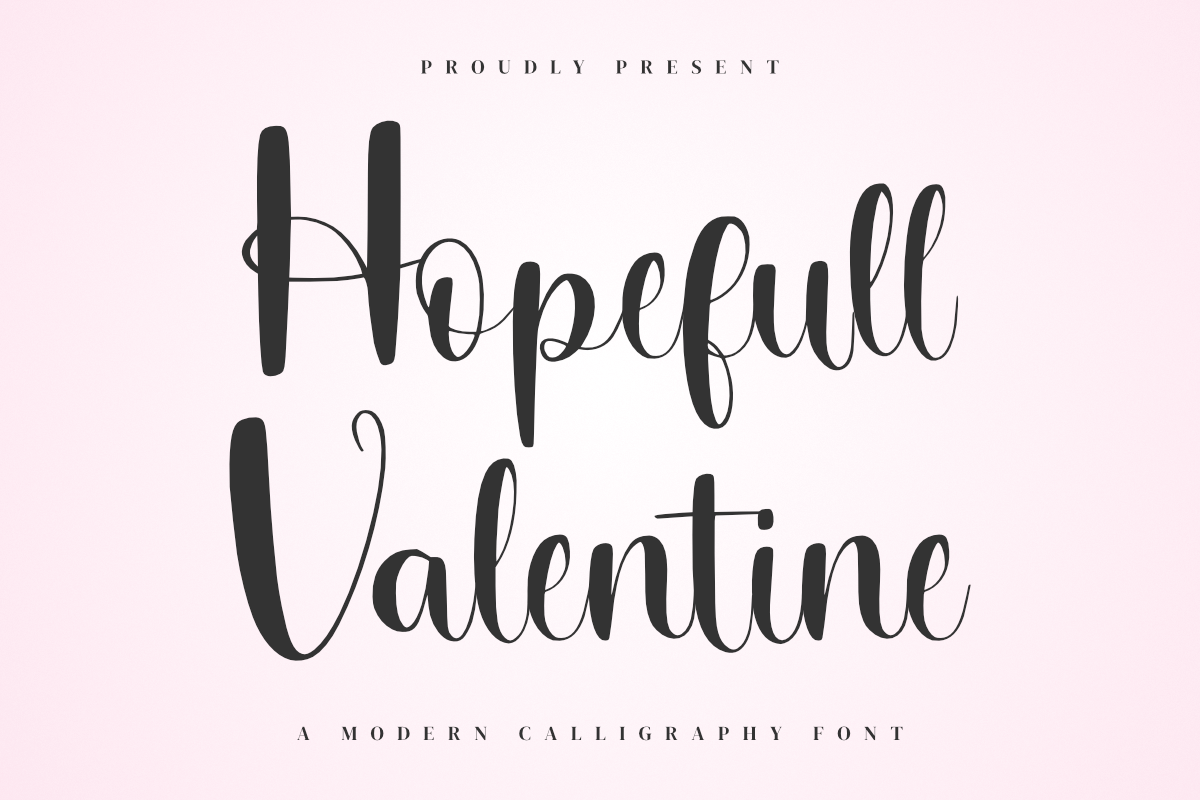
Hopefull Valentine - Beauty Font
Hopefull Valentine is an elegant and modern script font with smooth and luxurious strokes. Perfect for wedding invitations, branding, logos, quotes, greeting cards and signature styles. With a feminine and stylish look, this font will give an exclusive touch to your designs!